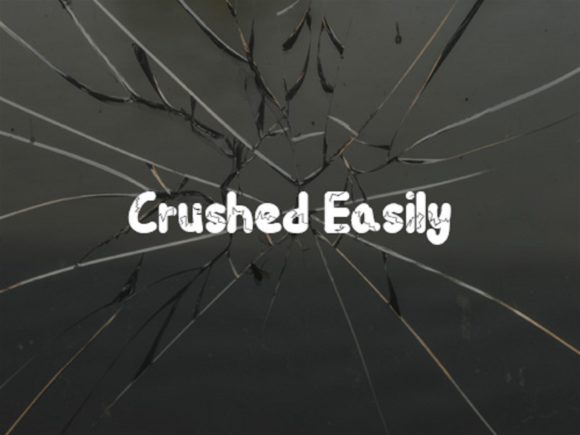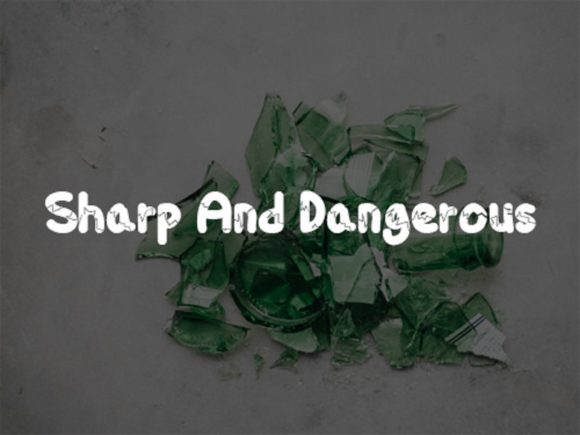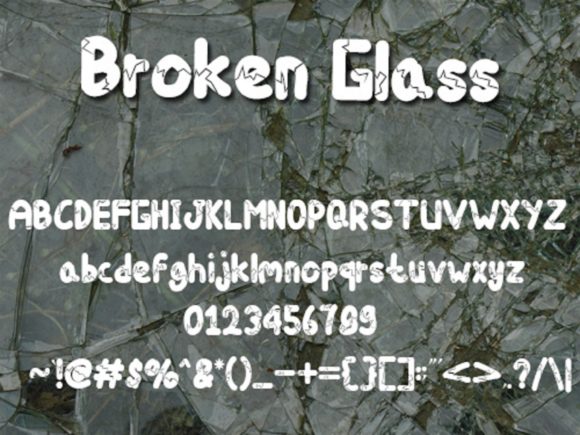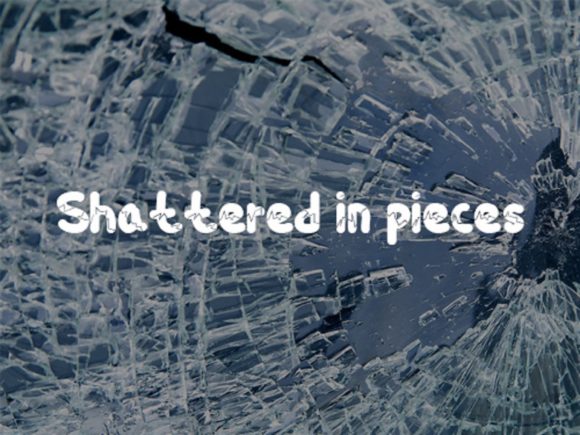
Introducing Broken Glass Font: Elevate Your Designs with a Unique Display Font
Are you tired of using the same old fonts in your designs? Do you want to add a touch of uniqueness and creativity to your projects? Look no further than the Broken Glass Font, an awesome and incredibly unique looking display font that’s sure to elevate your designs to the next level.
What is Broken Glass Font?
Broken Glass Font is a display font that features a distinctive, shattered glass effect. Its irregular and fragmented design makes it perfect for creating eye-catching headlines, titles, and captions that demand attention. Whether you’re designing a logo, brochure, or social media post, this font is sure to make your creation stand out from the crowd.
Why You’ll Love Broken Glass Font
So, what makes Broken Glass Font so special? Here are just a few reasons why you’ll love adding this font to your library:
- Unique and Creative: Broken Glass Font is unlike any other font you’ll find. Its shattered glass effect adds a touch of edginess and creativity to your designs, making them instantly more interesting and engaging.
- Versatile: Despite its unique design, Broken Glass Font is incredibly versatile. It can be used for a wide range of projects, from bold and dramatic headlines to more subtle and sophisticated designs.
- Easy to Read: Despite its fragmented design, Broken Glass Font is surprisingly easy to read. This makes it perfect for use in titles, headings, and other display text where you want to make a big impact.
- Customizable: With Broken Glass Font, you can customize your text to fit your brand’s style and aesthetic. Use it as is, or experiment with different colors, textures, and effects to create a truly unique look.
How to Use Broken Glass Font
So, how can you use Broken Glass Font in your designs? Here are a few ideas to get you started:
- Headlines and Titles: Use Broken Glass Font to create bold and eye-catching headlines that demand attention.
- Logos and Branding: Add a touch of edginess to your logo or brand identity with Broken Glass Font.
- Social Media Graphics: Use Broken Glass Font to create eye-catching social media graphics that stand out in crowded feeds.
- Posters and Flyers: Add a touch of drama and creativity to your posters and flyers with Broken Glass Font.
Tips and Tricks for Getting the Most Out of Broken Glass Font
Here are a few tips and tricks to help you get the most out of Broken Glass Font:
- Experiment with Colors: Try pairing Broken Glass Font with different colors and textures to create a truly unique look.
- Use it Sparingly: While Broken Glass Font is incredibly versatile, it’s best used sparingly. Use it to create a focal point in your design, and then pair it with simpler fonts for body text.
- Play with Effects: Don’t be afraid to experiment with different effects, such as drop shadows, gradients, and textures, to add depth and interest to your text.
In conclusion, Broken Glass Font is an awesome and incredibly unique looking display font that’s sure to elevate your designs to the next level. With its distinctive shattered glass effect, versatility, and ease of use, it’s the perfect addition to any designer’s font library. So why wait? Download Broken Glass Font today and start creating stunning, one-of-a-kind designs that demand attention.